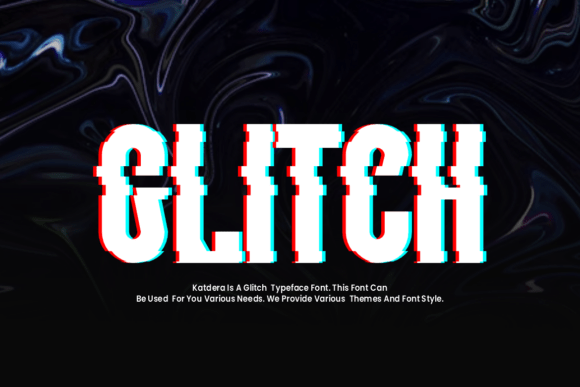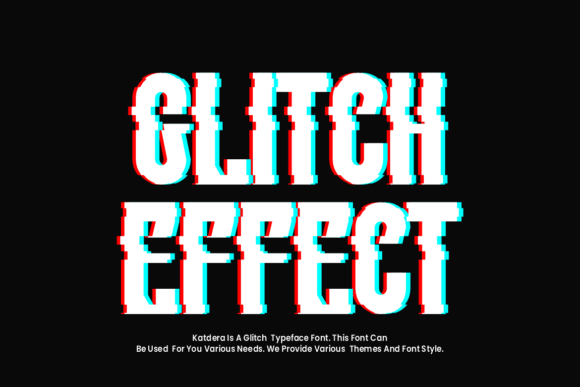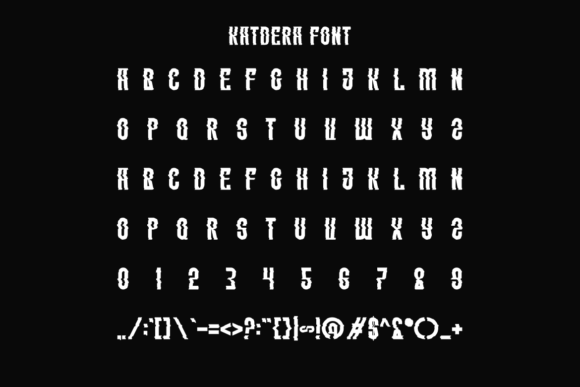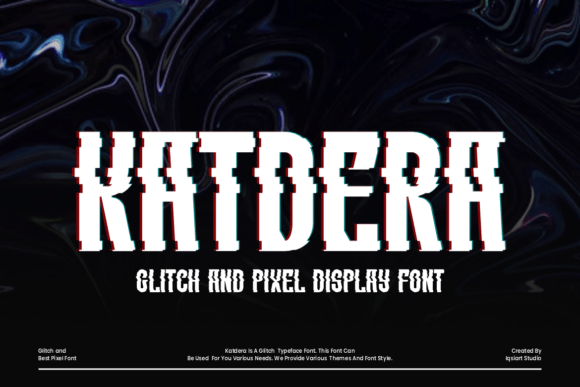
Introduction to Katdera Font
Katdera display font brings a bold, futuristic edge with its striking glitch effect that instantly commands attention.
Its strong, blocky letterforms are fractured with digital distortions, creating a modern, cyberpunk aesthetic perfect for tech-inspired designs, edgy branding, or eye-catching posters The high-contrast strokes and layered chromatic glitch details add depth and dynamism, giving every composition a sense of motion and energy.